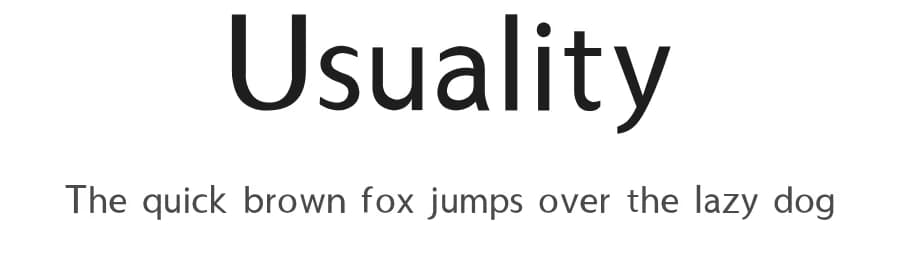
About Usuality Font
Usuality is a sans-serif font designed by Sba Factory. It includes 221 glyphs, a regular weight, TTF (TrueType) format, and 216 languages. Usuality is free to download; check the license details on this page before commercial use. Sans-serif fonts like Usuality work best for clean body text, user interfaces, branding, and modern layouts.
Usuality Font is a versatile sans-serif font that works for both headings and body text. Pair it with a contrasting serif or slab serif font to add visual interest and a clear distinction between titles and body copy.
Usuality Font
by Sba Factory